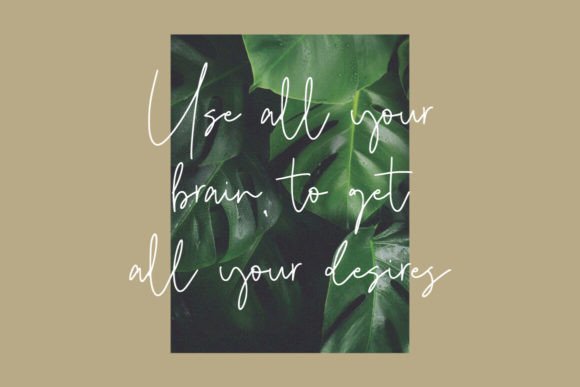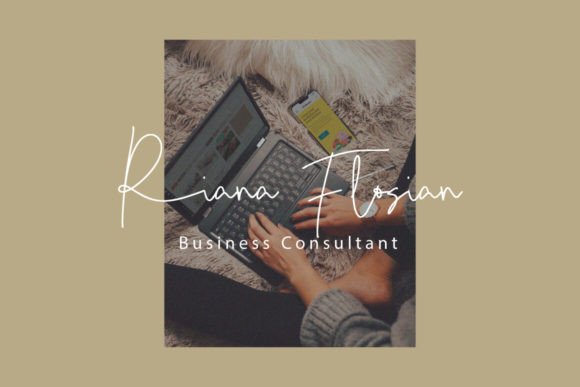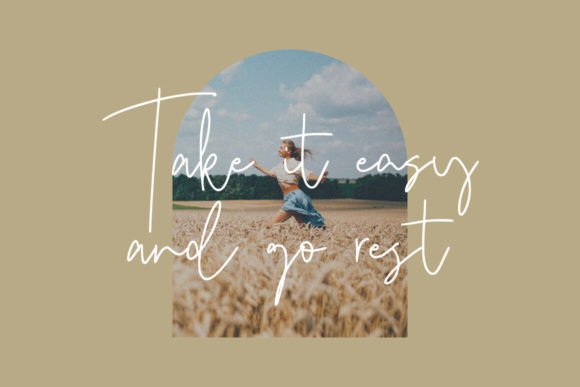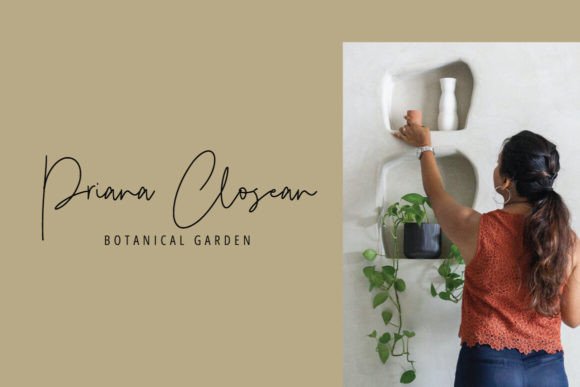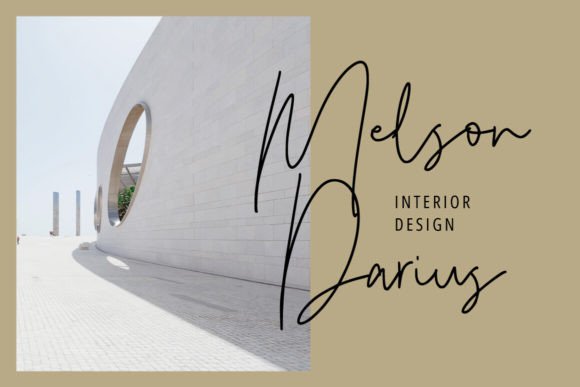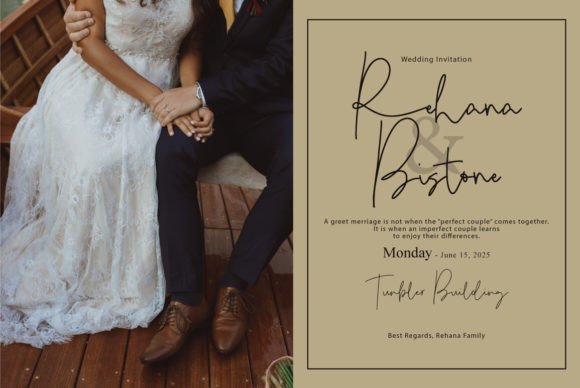
Bistye Font: Elevate Your Designs with a Handmade Signature Style
Are you looking for a unique and creative way to add a personal touch to your designs? Look no further than the Bistye Font, a beautiful handmade signature style font that is perfect for a variety of projects. With its decorative characters and dancing baseline, this font is sure to add a touch of elegance and sophistication to any design.
What is Bistye Font?
Bistye Font is a carefully crafted font that mimics the look and feel of a handwritten signature. With its flowing lines and delicate curves, this font has a distinctly handmade feel that is sure to capture the attention of your audience. Whether you’re designing an invitation, a greeting card, or a branding material, Bistye Font is the perfect choice.
Key Features of Bistye Font
- Handmade Signature Style: Bistye Font has a unique, handmade signature style that adds a personal touch to any design.
- Decorative Characters: The font features decorative characters that add an extra touch of elegance and sophistication.
- Dancing Baseline: The dancing baseline of Bistye Font gives it a playful and dynamic feel that is sure to capture the attention of your audience.
Uses for Bistye Font
Bistye Font is a versatile font that can be used for a variety of projects, including:
- Invitations: Add a touch of elegance and sophistication to your invitations with Bistye Font.
- Greeting Cards: Make your greeting cards stand out with the unique and creative style of Bistye Font.
- Branding Materials: Use Bistye Font to add a personal touch to your branding materials, such as business cards and brochures.
- Quotes: Add a touch of inspiration and motivation to your quotes with the beautiful and creative style of Bistye Font.
- Posters: Make your posters stand out with the bold and eye-catching style of Bistye Font.
Benefits of Using Bistye Font
There are many benefits to using Bistye Font in your designs, including:
- Unique and Creative Style: Bistye Font has a unique and creative style that is sure to capture the attention of your audience.
- Elegant and Sophisticated: The font has an elegant and sophisticated feel that is perfect for a variety of projects.
- Handmade Feel: The handmade feel of Bistye Font adds a personal touch to any design.
- Versatile: Bistye Font can be used for a variety of projects, from invitations to posters.
Bistye Font is a beautiful and creative font that is perfect for designers and crafters looking to add a personal touch to their designs. With its handmade signature style, decorative characters, and dancing baseline, this font is sure to elevate your designs to the next level. Whether you’re designing an invitation, a greeting card, or a branding material, Bistye Font is the perfect choice.